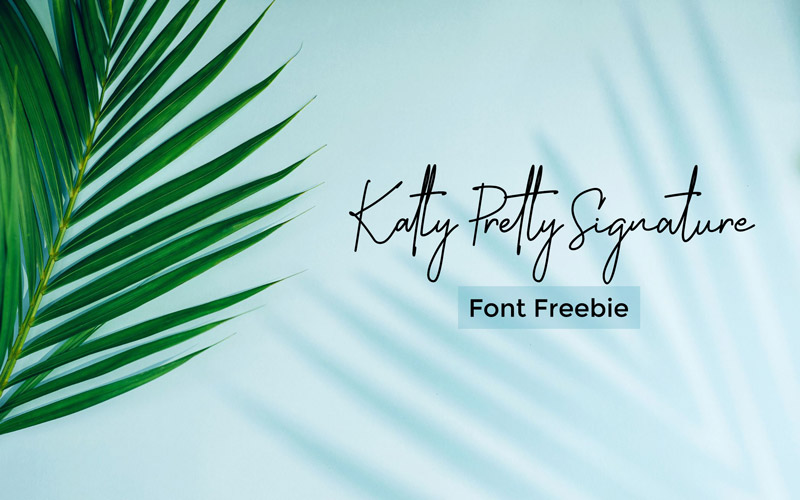
Katty Pretty Signature Font
Introducing the Katty Pretty Signature Font Freebie,this font will elevate your work to a whole new level.
Experience the delicate and sophisticated letterforms now, Katty Pretty exudes a sense of refined beauty that will capture the attention of your audience. Each stroke is carefully crafted to create a seamless flow and bring a touch of authenticity to your designs. The fluid curves and unique character variations make Katty Pretty a truly standout font, setting your work apart from the rest.
But what truly sets Katty Pretty apart is its versatility. This font is designed to adapt to any project, whether it’s a wedding invitation, a fashion brand, or a beauty blog. Its timeless appeal makes it suitable for both modern and classic designs, giving you the freedom to express your creativity without limitations.